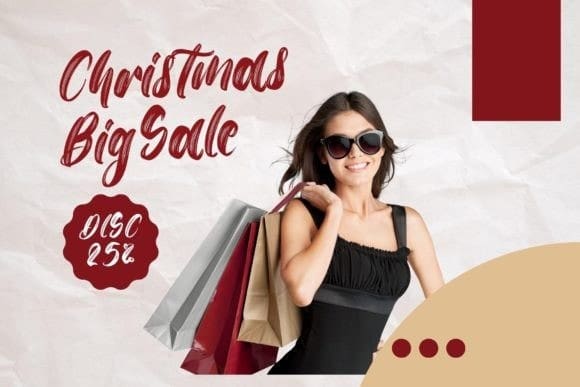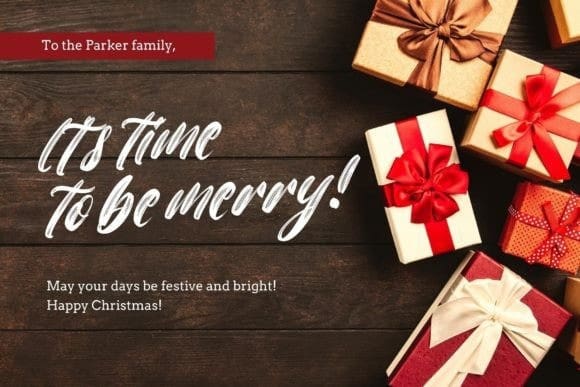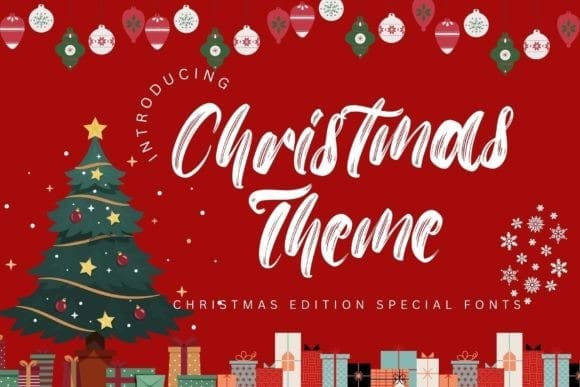
Christmas Theme Font
Christmas Theme Font is a cute, unique, and friendly script font. It has a modern yet whimsical style and will undoubtedly immerse your designs into a magical world. This font is perfect for various Christmas and New Year design purposes.